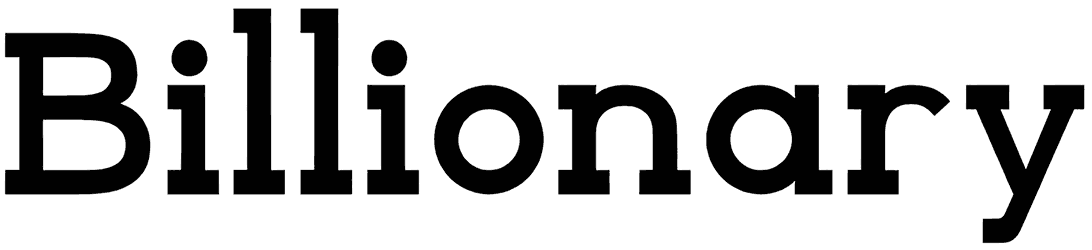
Billionary Font
Billionary is a serif font that is perfectly fit for all of your creative designs, including logos, business cards, flyers, billboards, and invitations. If the lack of numbers is not a serious shortage for you, we highly recommend trying it in your content and making the best outcome by conveying a sense of validity, formality, respect, and confidence.
Product Description :Billionary, a package that will delight you. With this family you will get many options to captivate,
engage, and inspire your audience and clients. This font can be used for a host of different content
needs and projects. Designed by Din Studio. Perfect for social media branding projects, fashion designs,